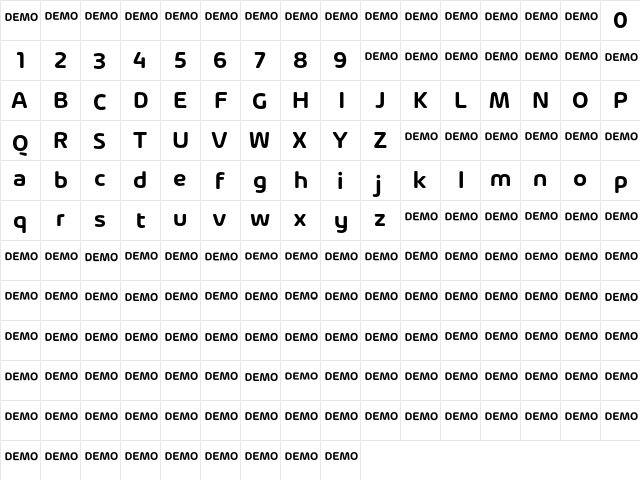
Arlon SemiBold DEMO
| Foundry | Marc Lohner |
| Designer | Marc Lohner |
Design Context for Arlon Typeface
Arlon is a composed and adaptable typeface that performs quietly and consistently across a wide range of design contexts. Its bold stroke weight gives it real presence on the page.